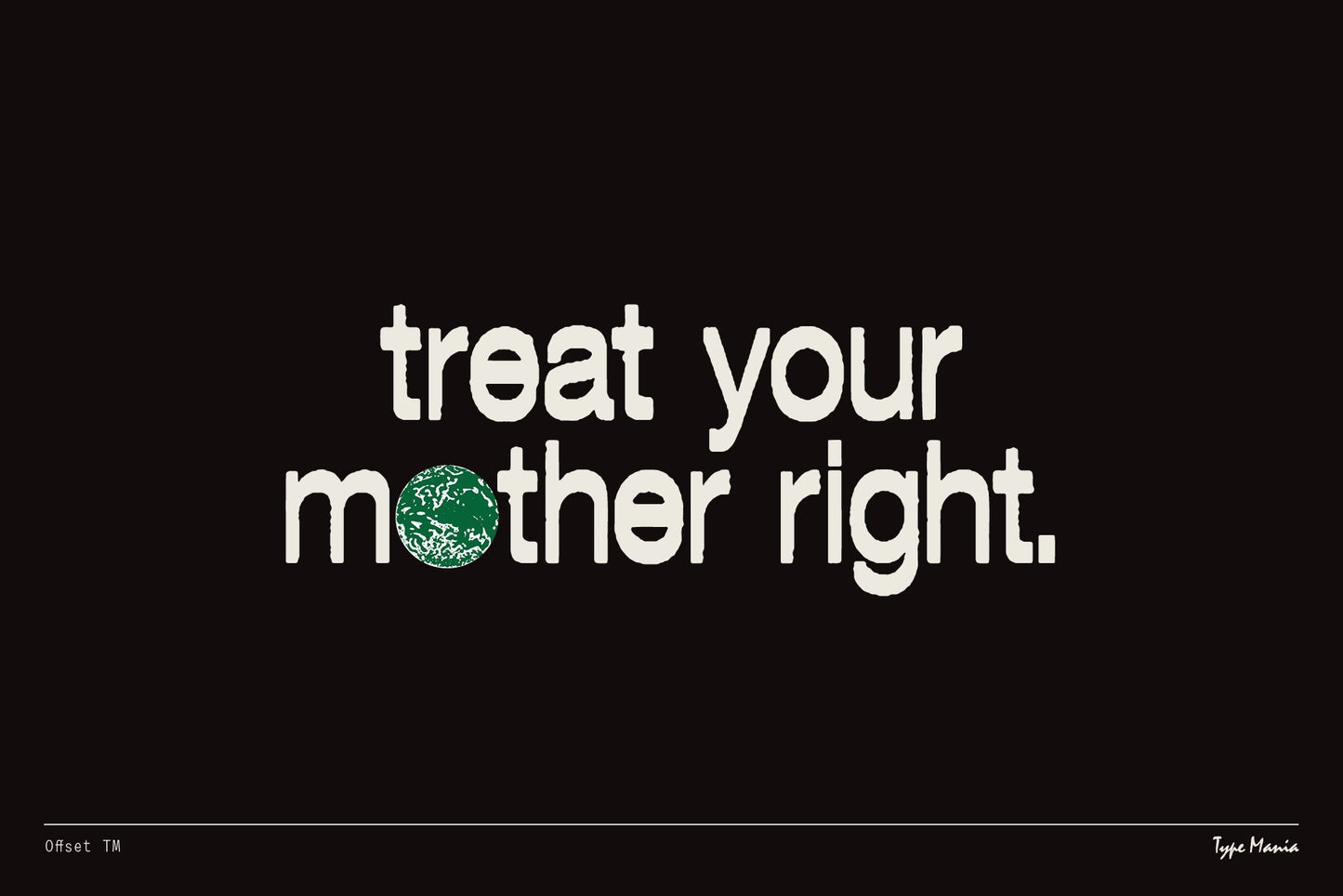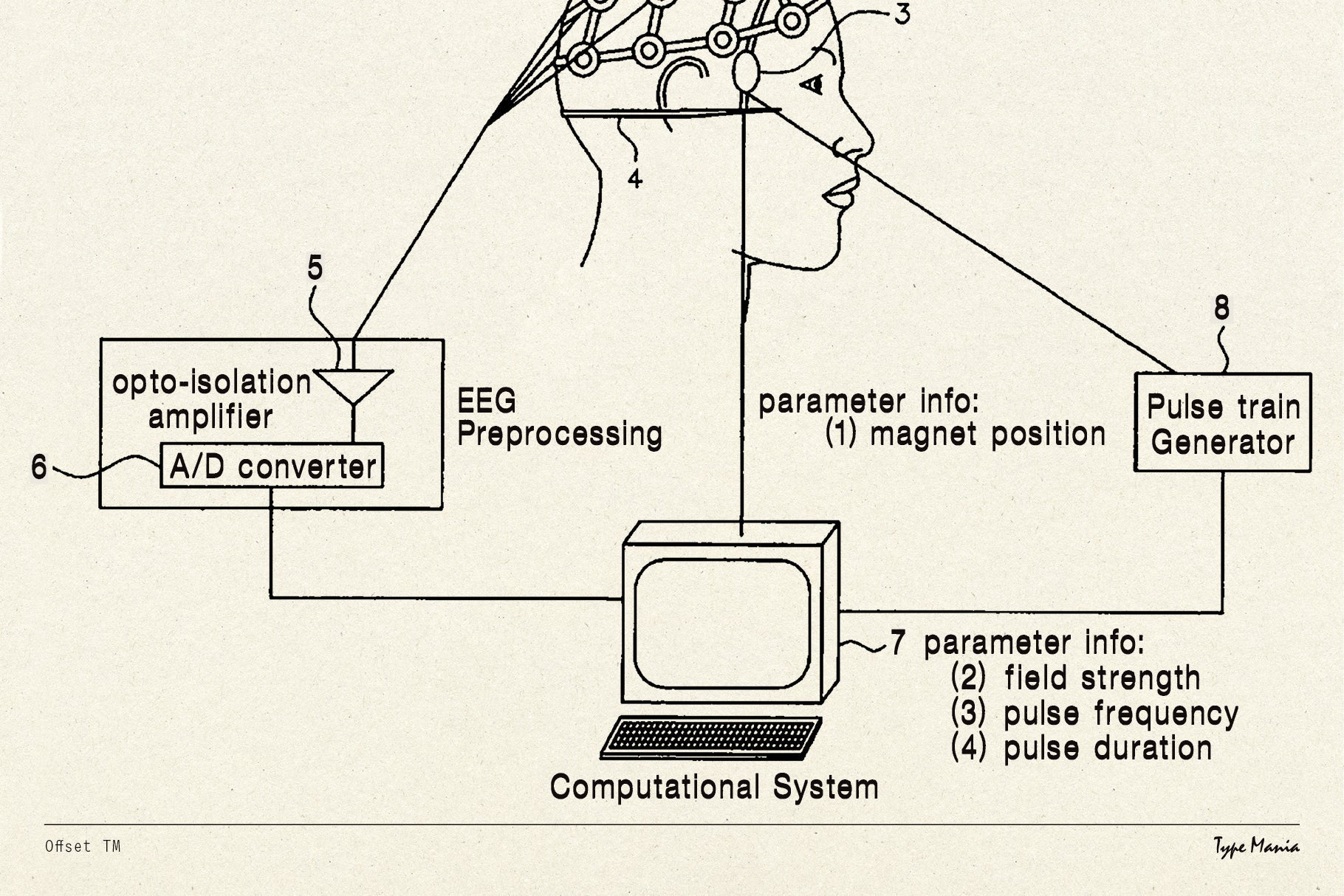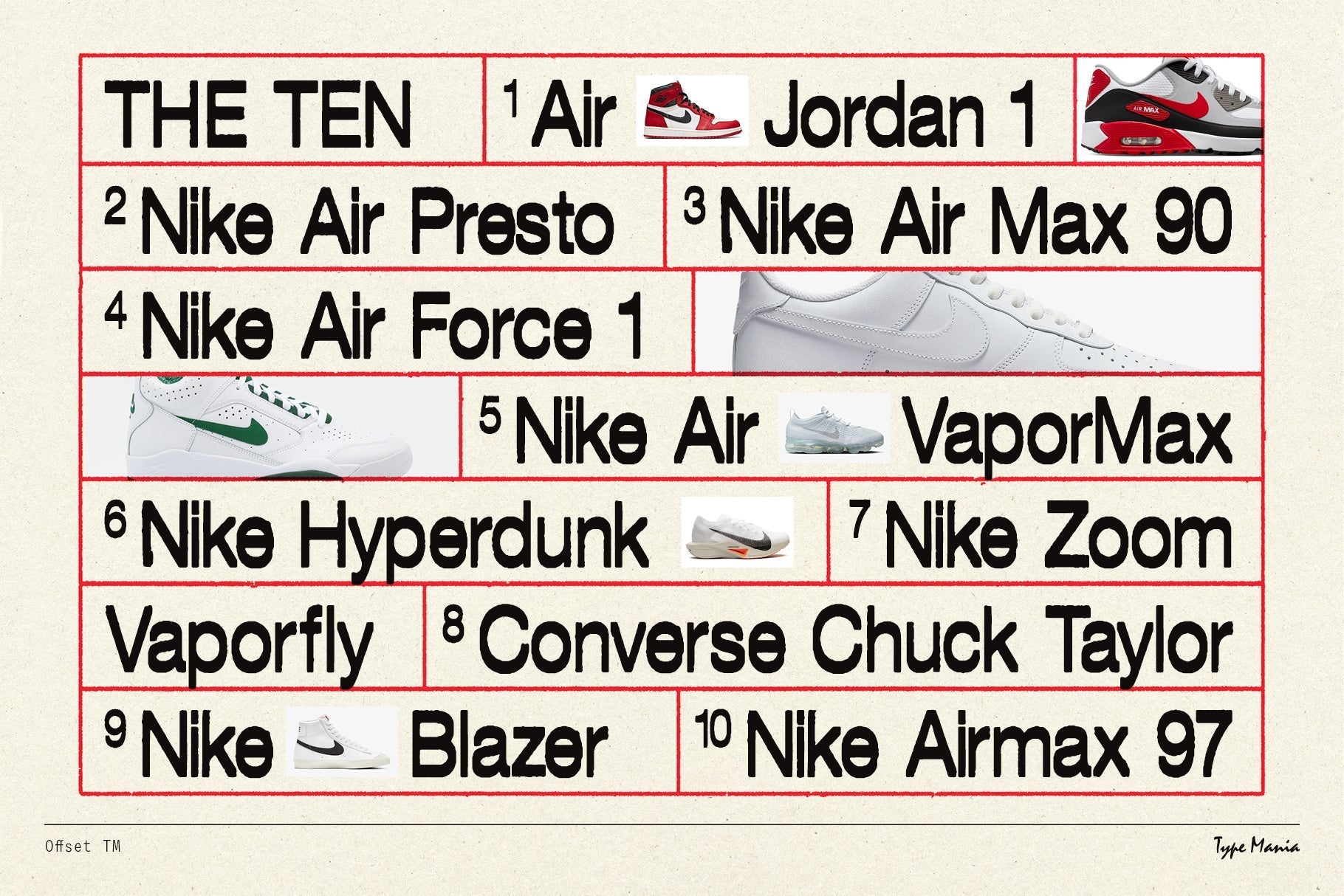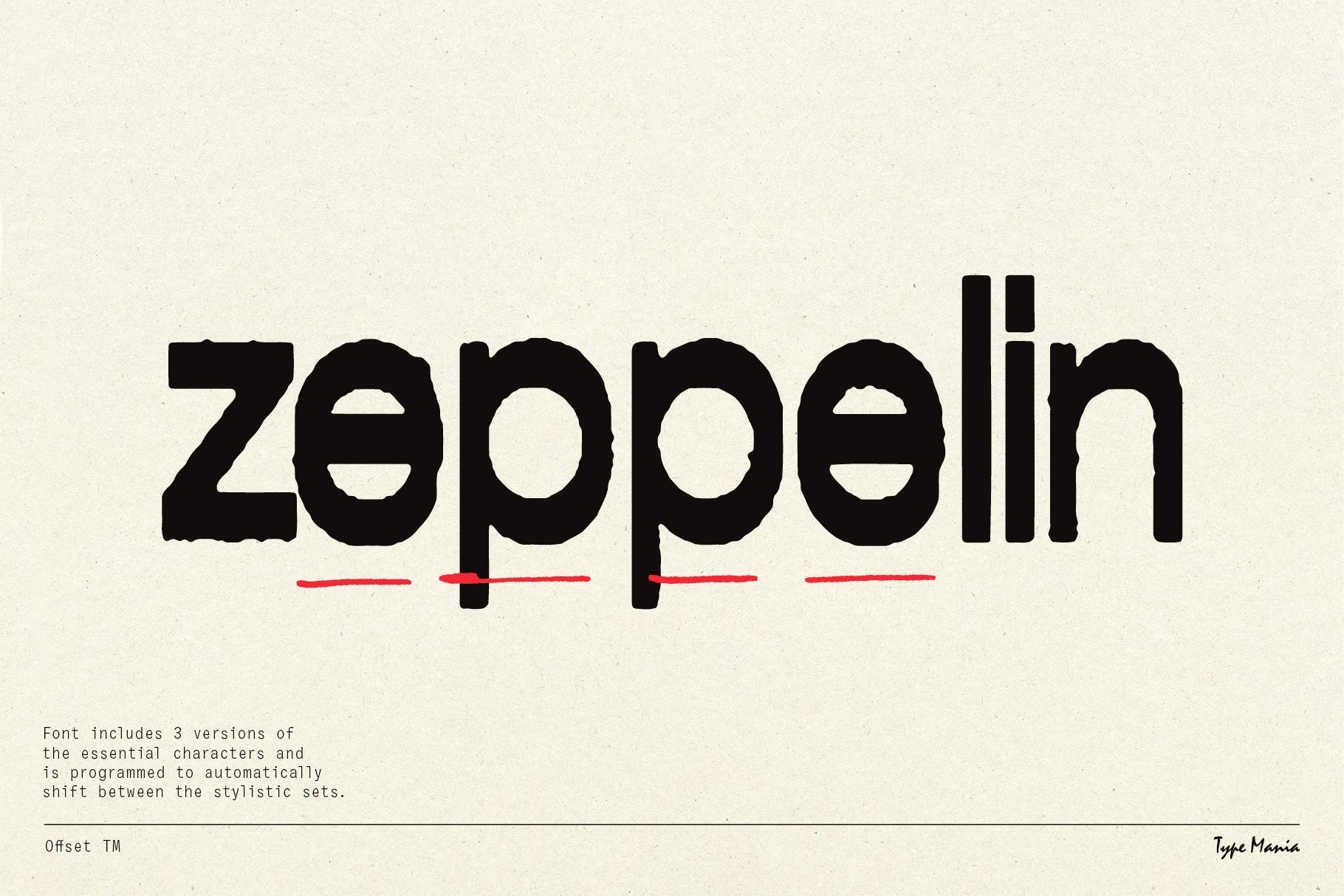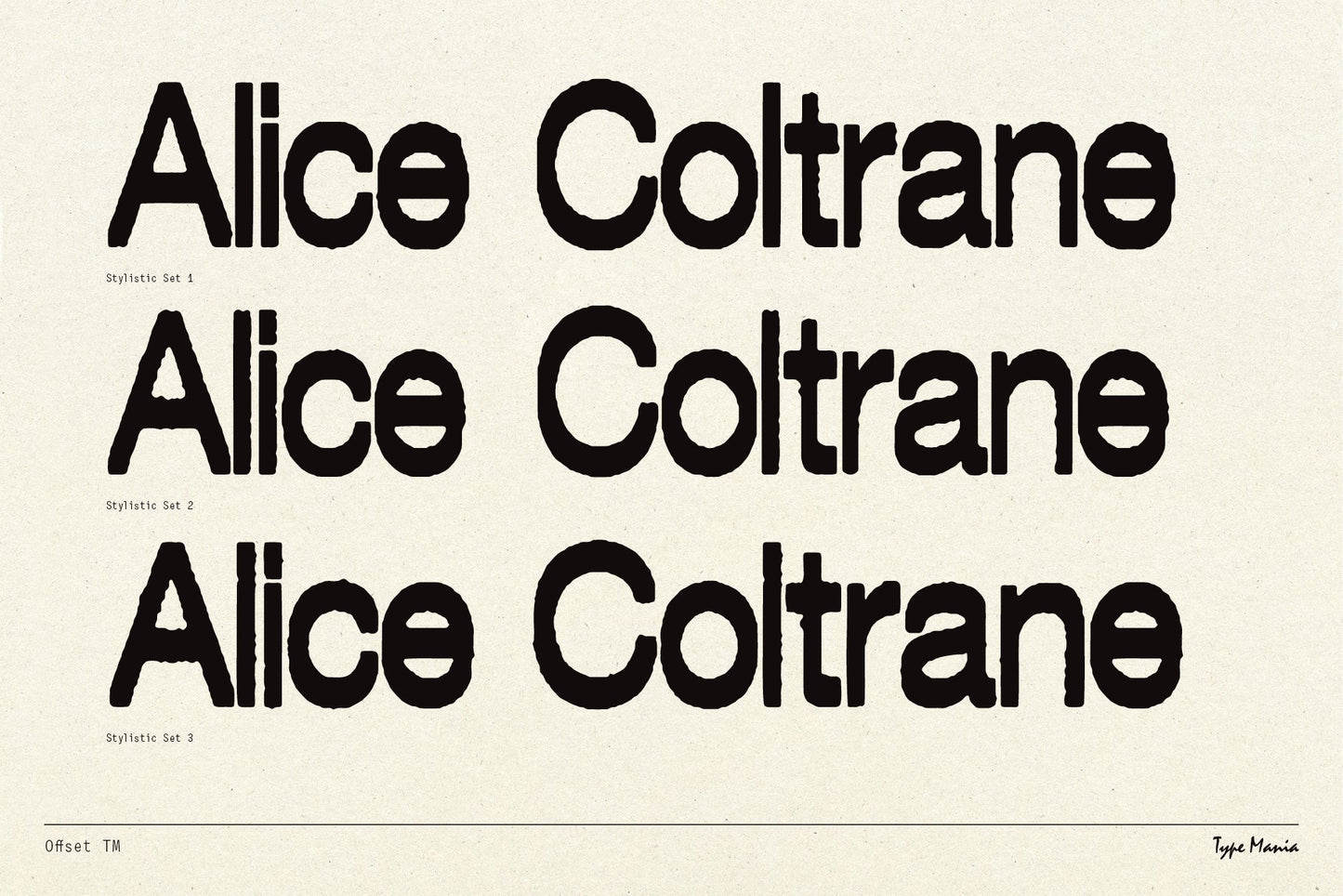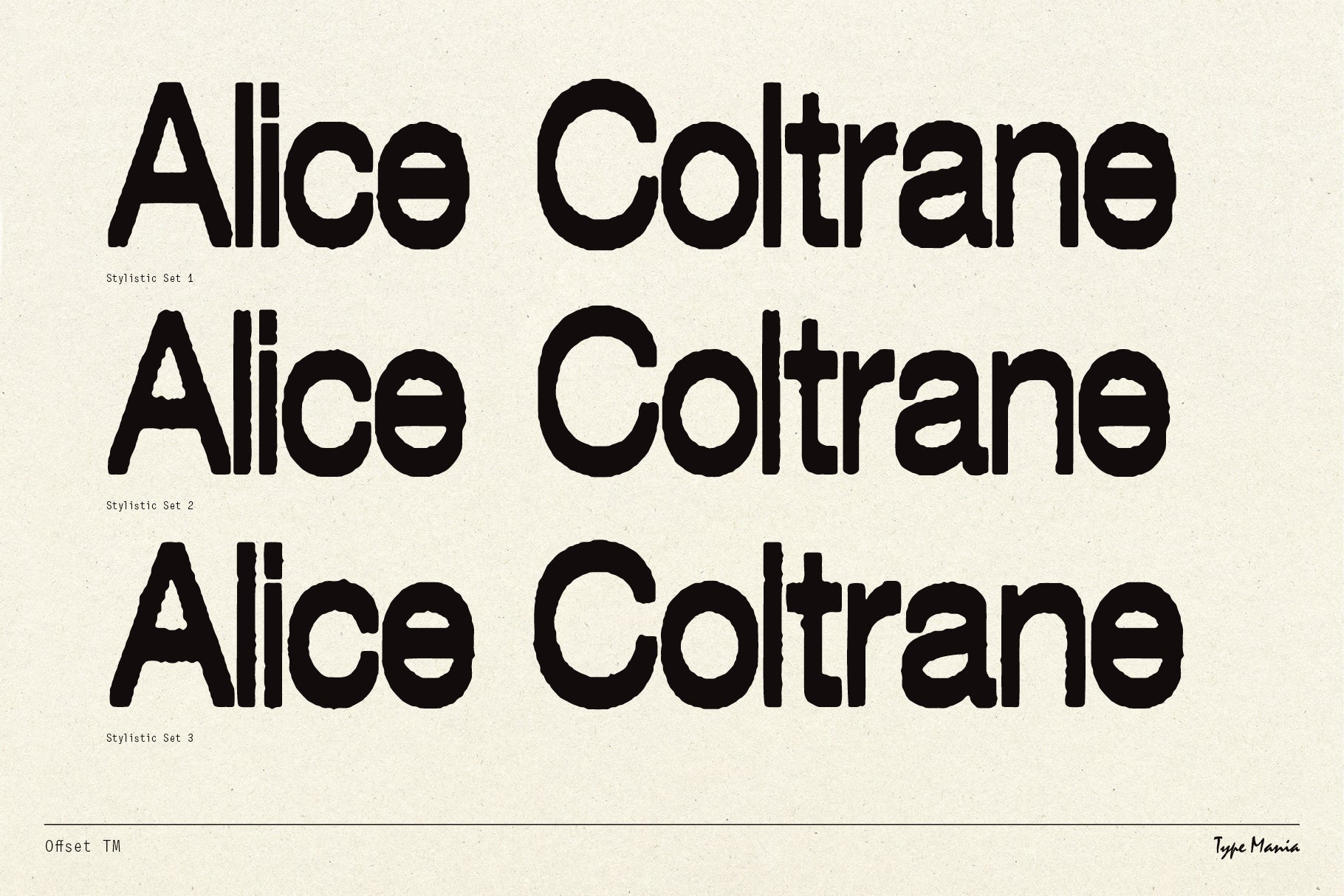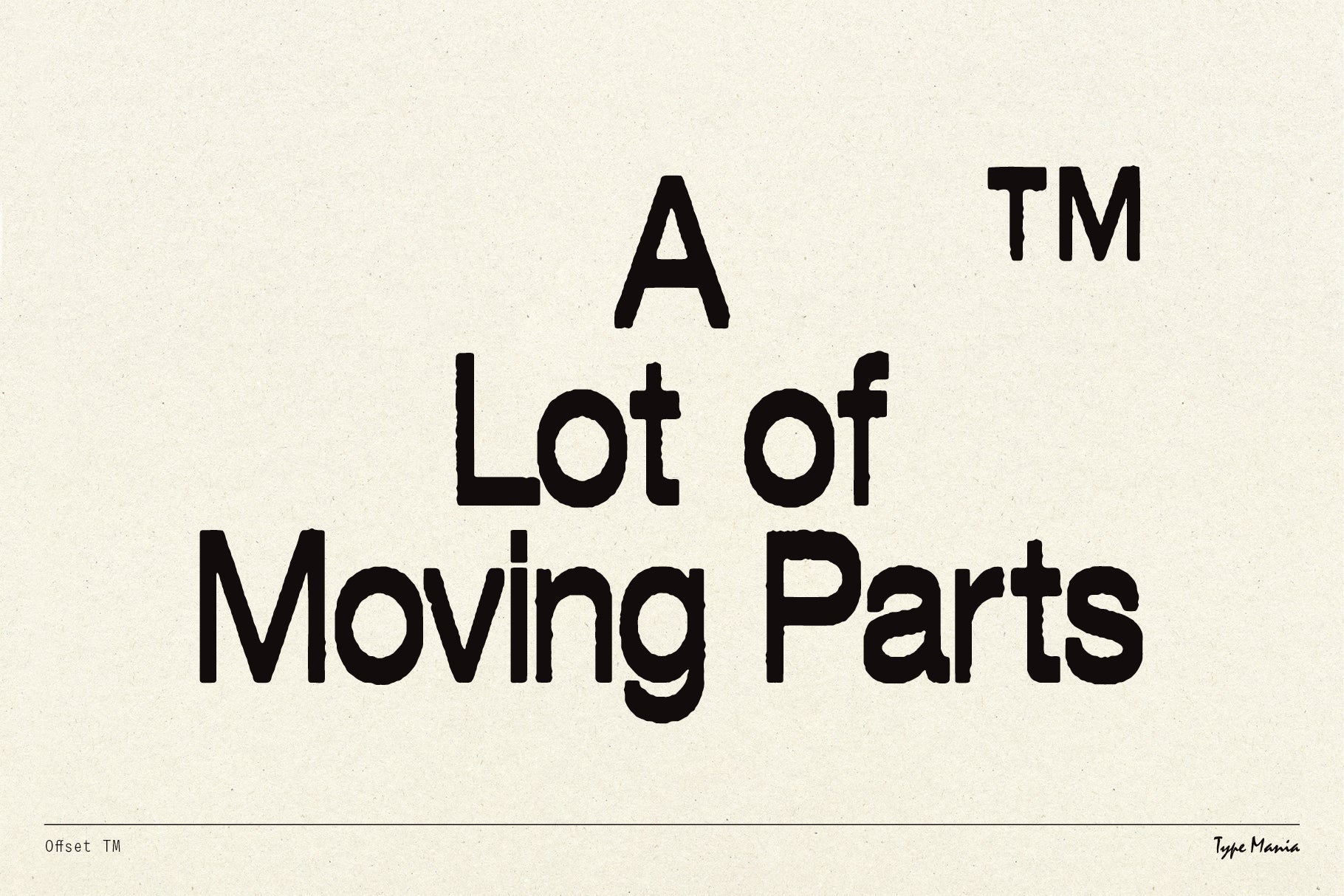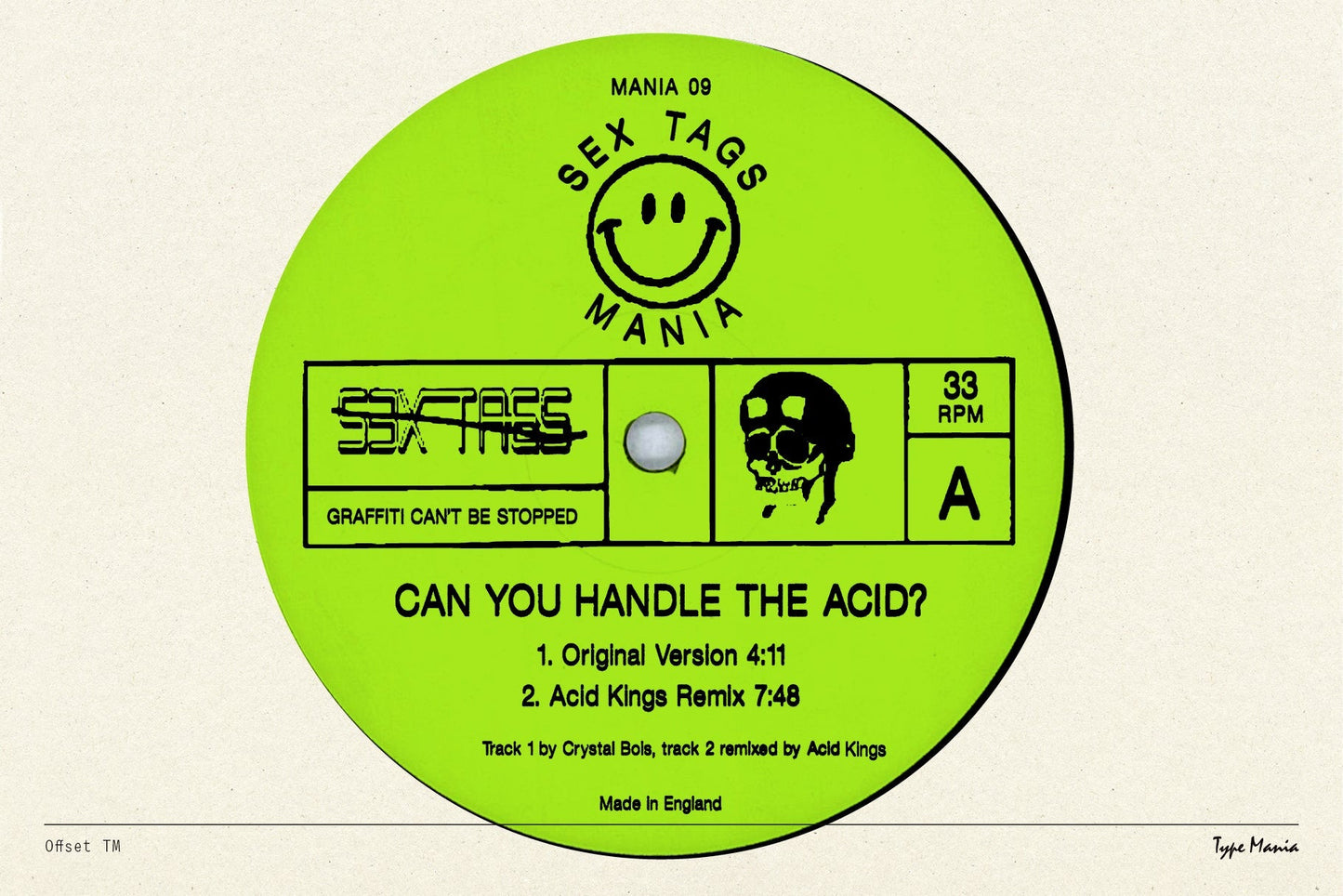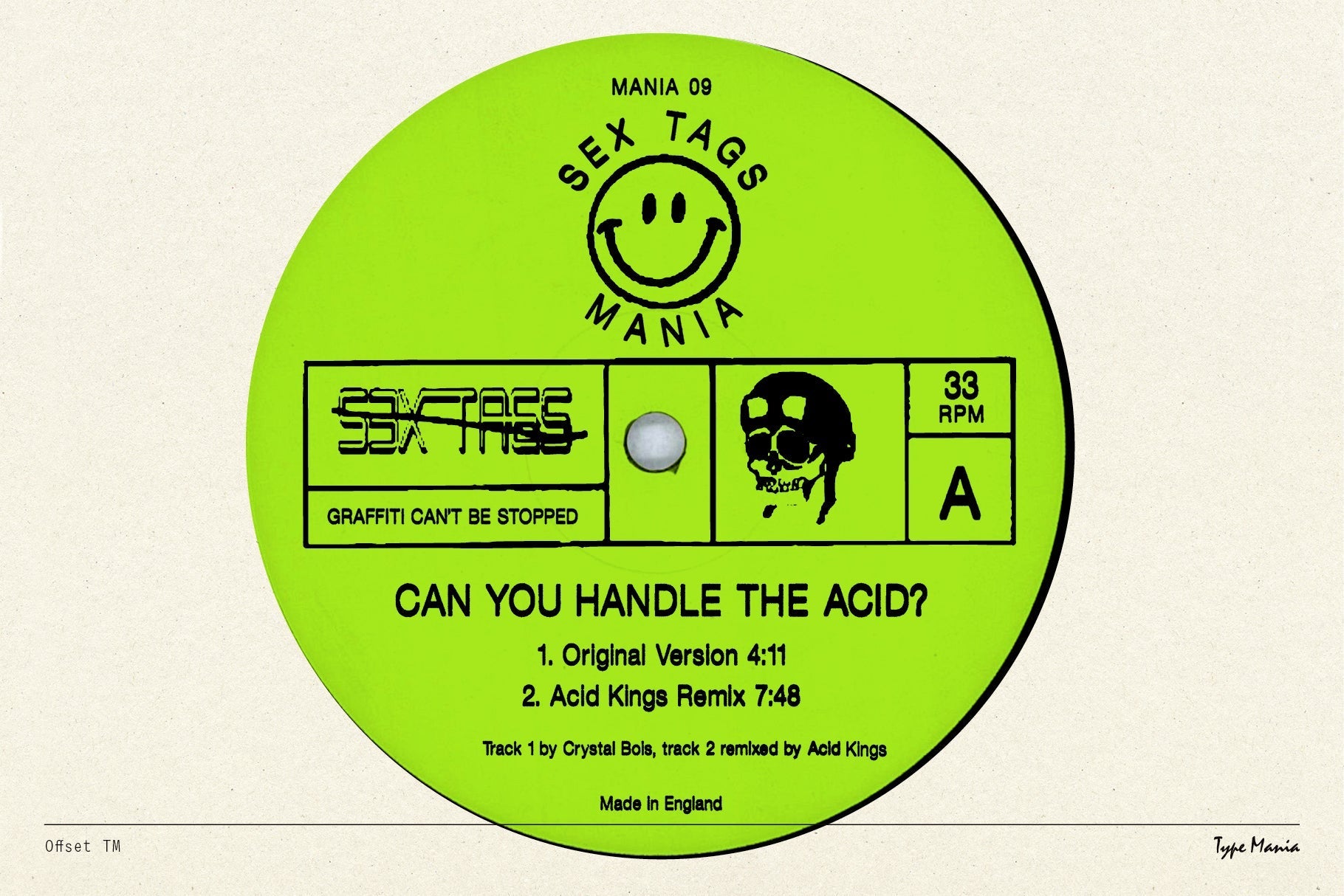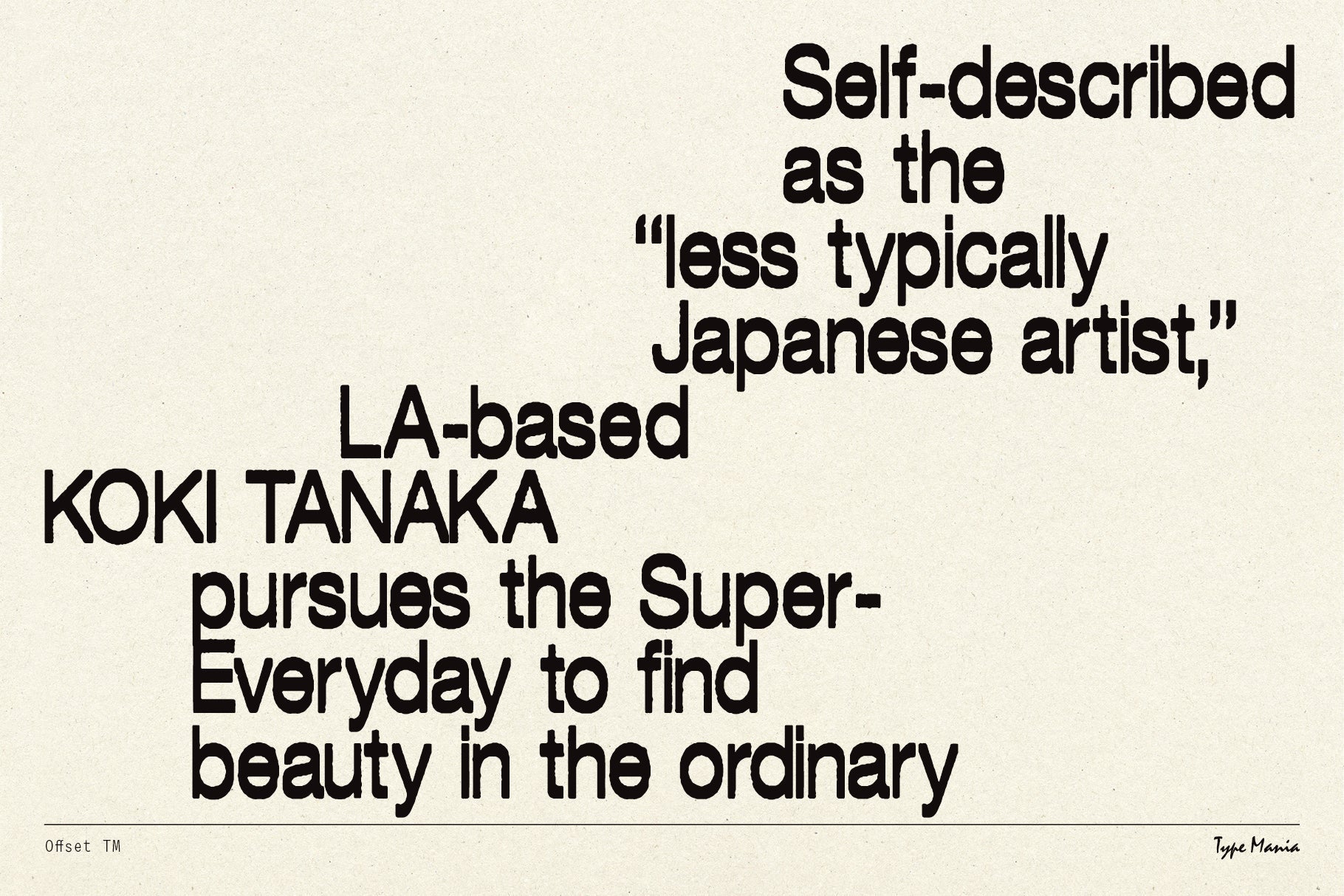
Offset TM
Introducing Offset TM. With 3145 lines of code it's a dynamic typeface that blends rugged aesthetics with innovative design features. This display font is not just visually gripping; it boasts three stylistic sets that automatically shuffle, adding character to your designs with ease.
- 3 stylistic sets
- The font is programmed to automatically shift between the stylistic sets to bring character to your design